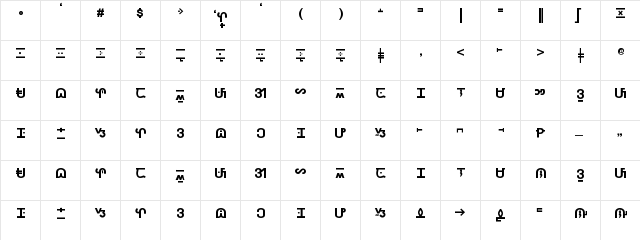
Aklatin Heavy Regular
Aklatin Heavy is a composed and adaptable typeface that performs quietly and consistently across a wide range of design contexts.